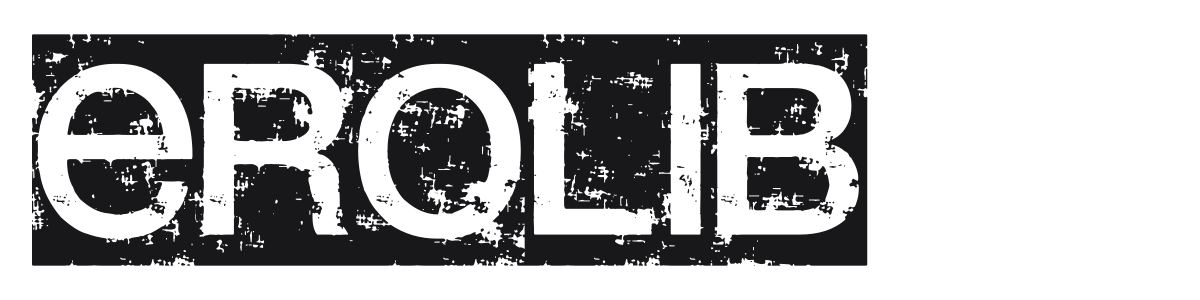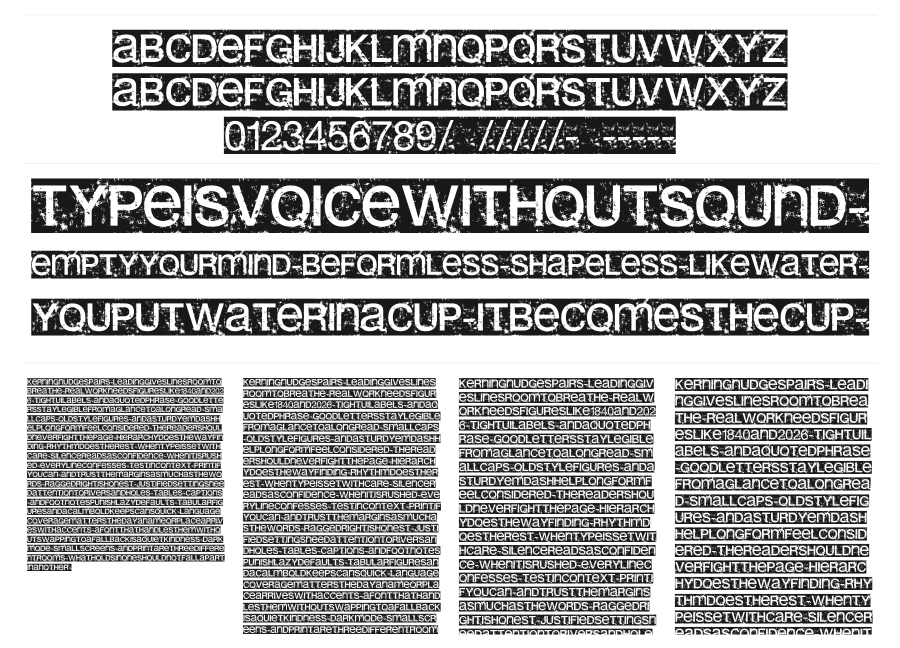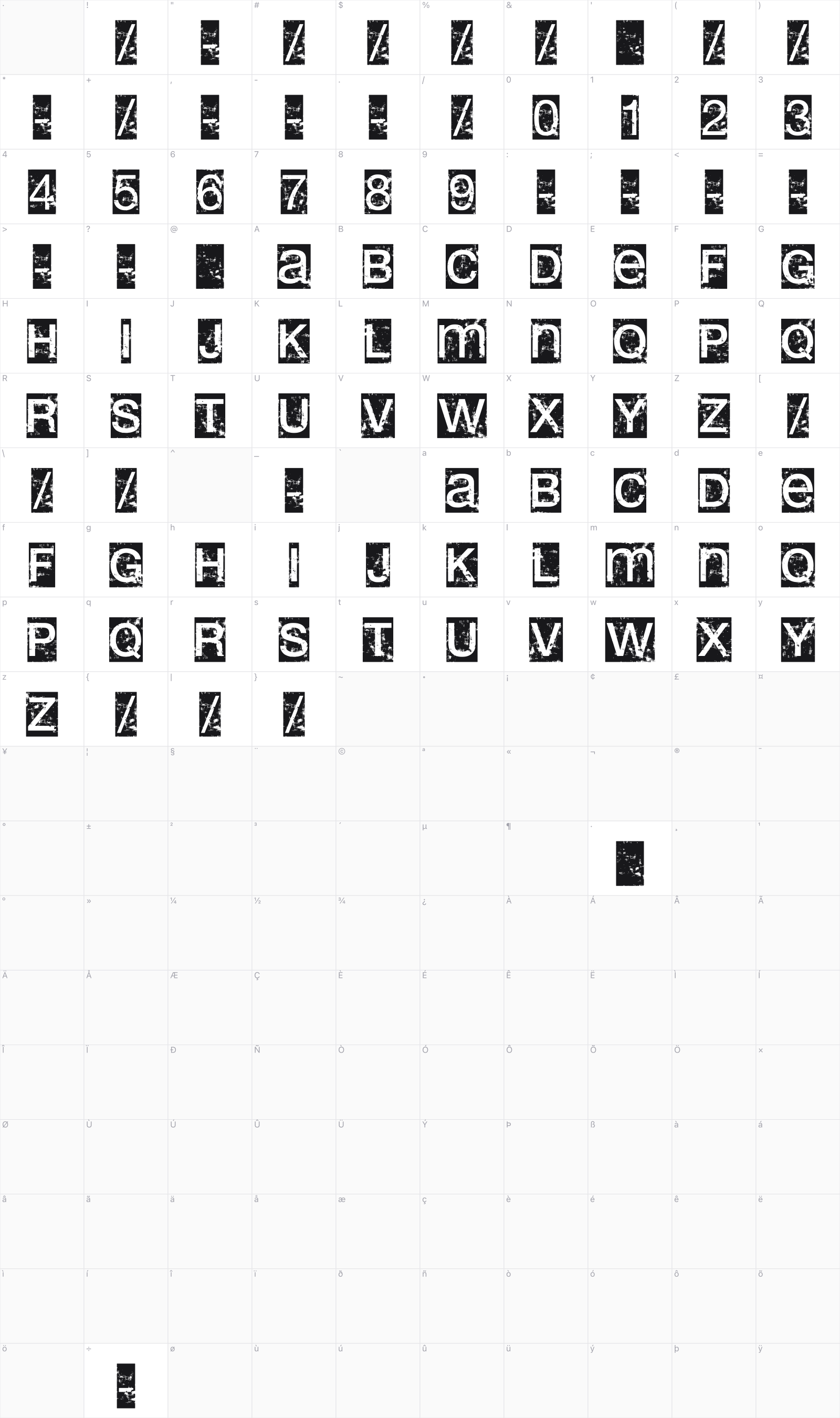
Erolib
Erolib is a heavy distressed sans-serif built on bold, blocky characters buried under aggressive grunge texture. Every stroke is eroded with ink dropout and edge roughness that mimics a worn rubber stamp or deteriorated print. The result is raw and confrontational, suited for headlines that need to feel like they've survived something.